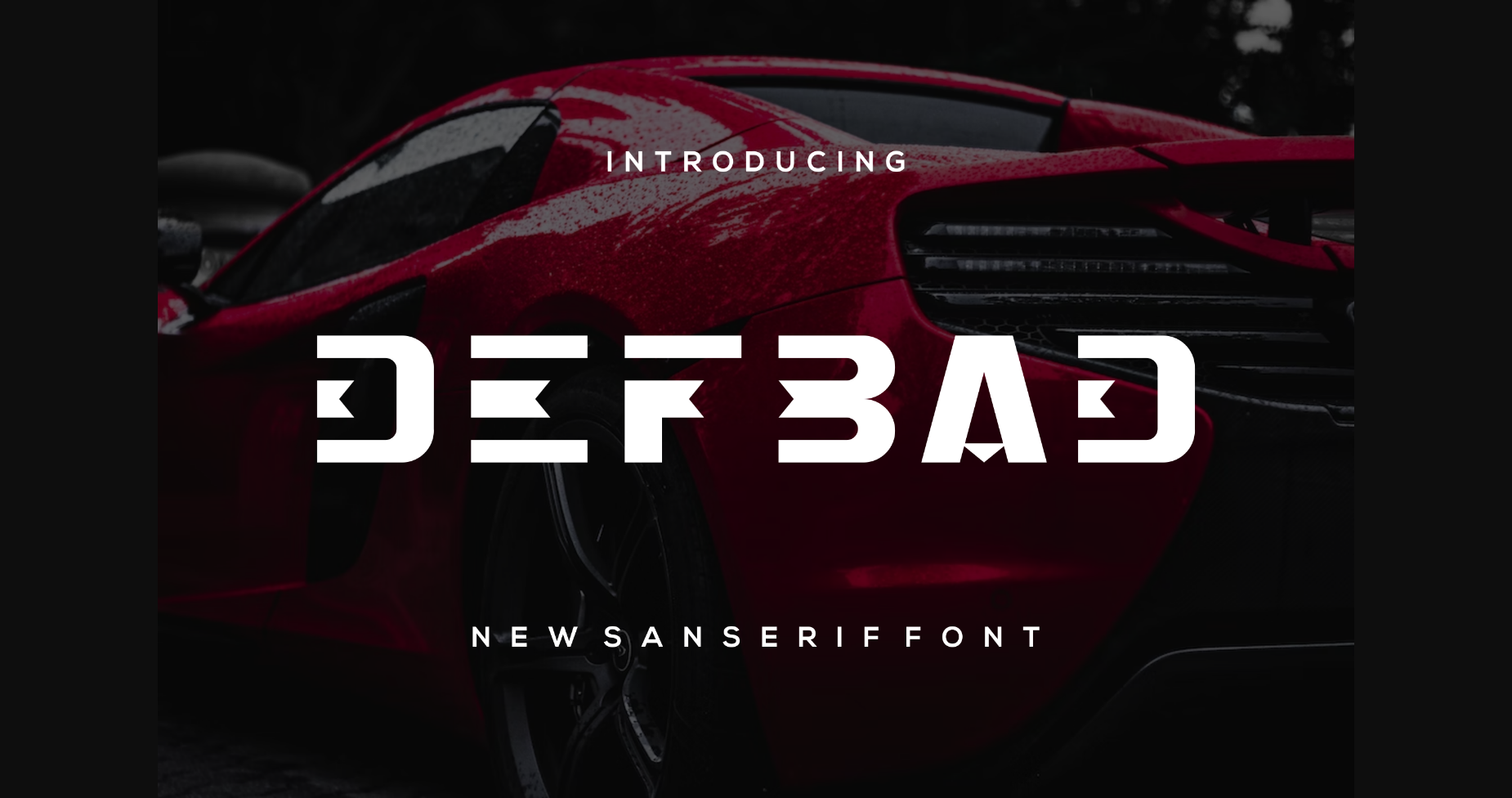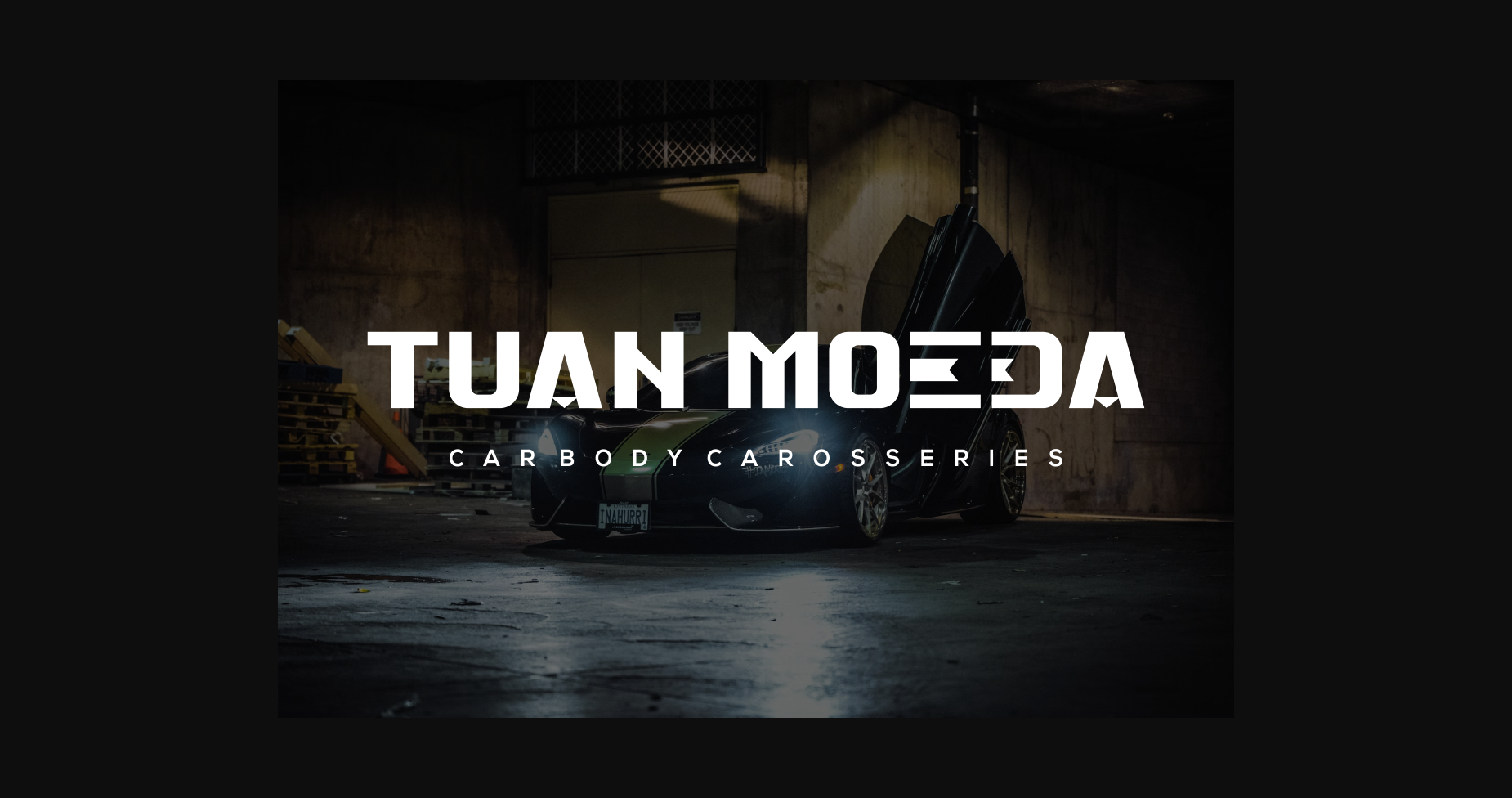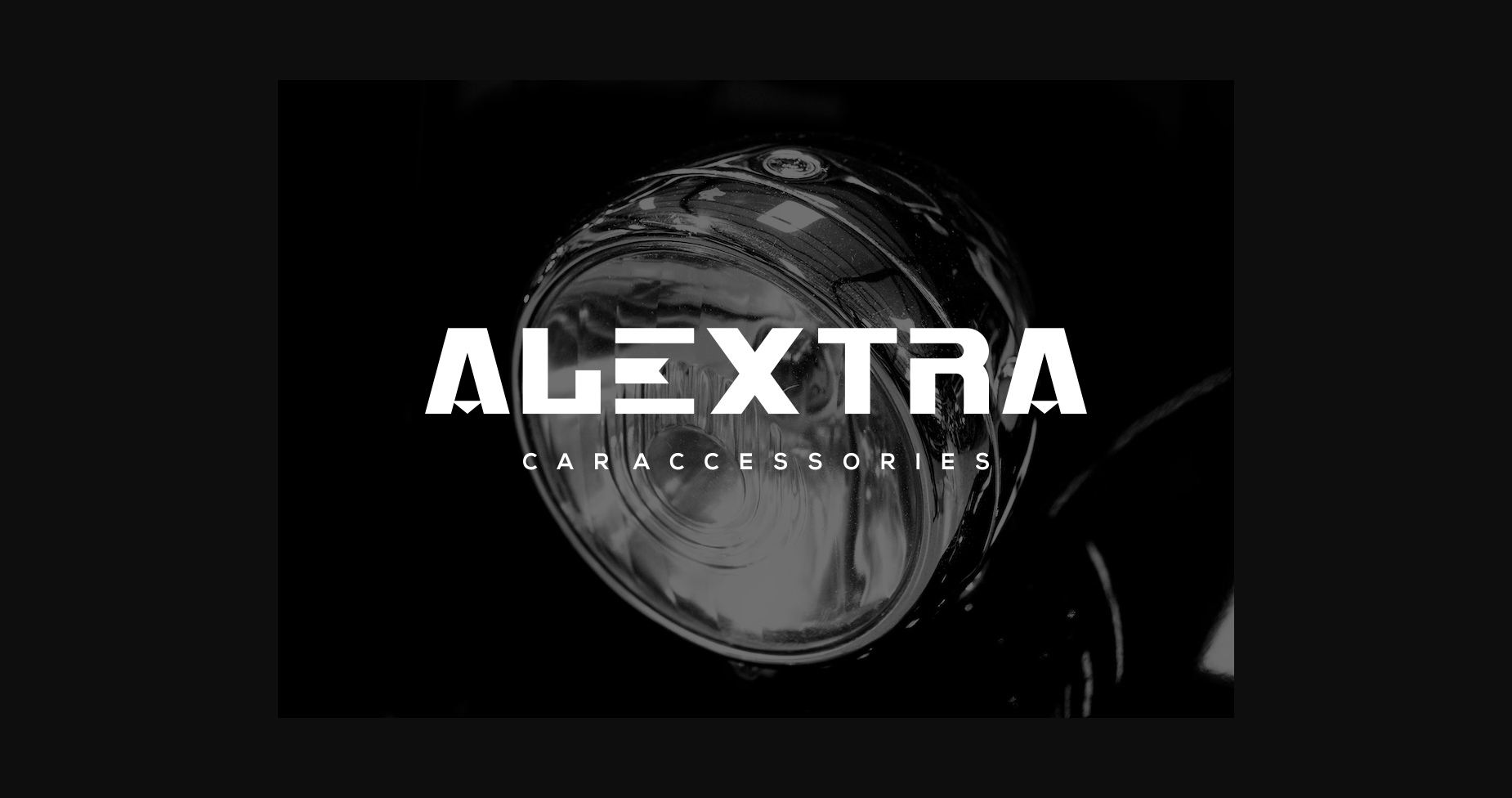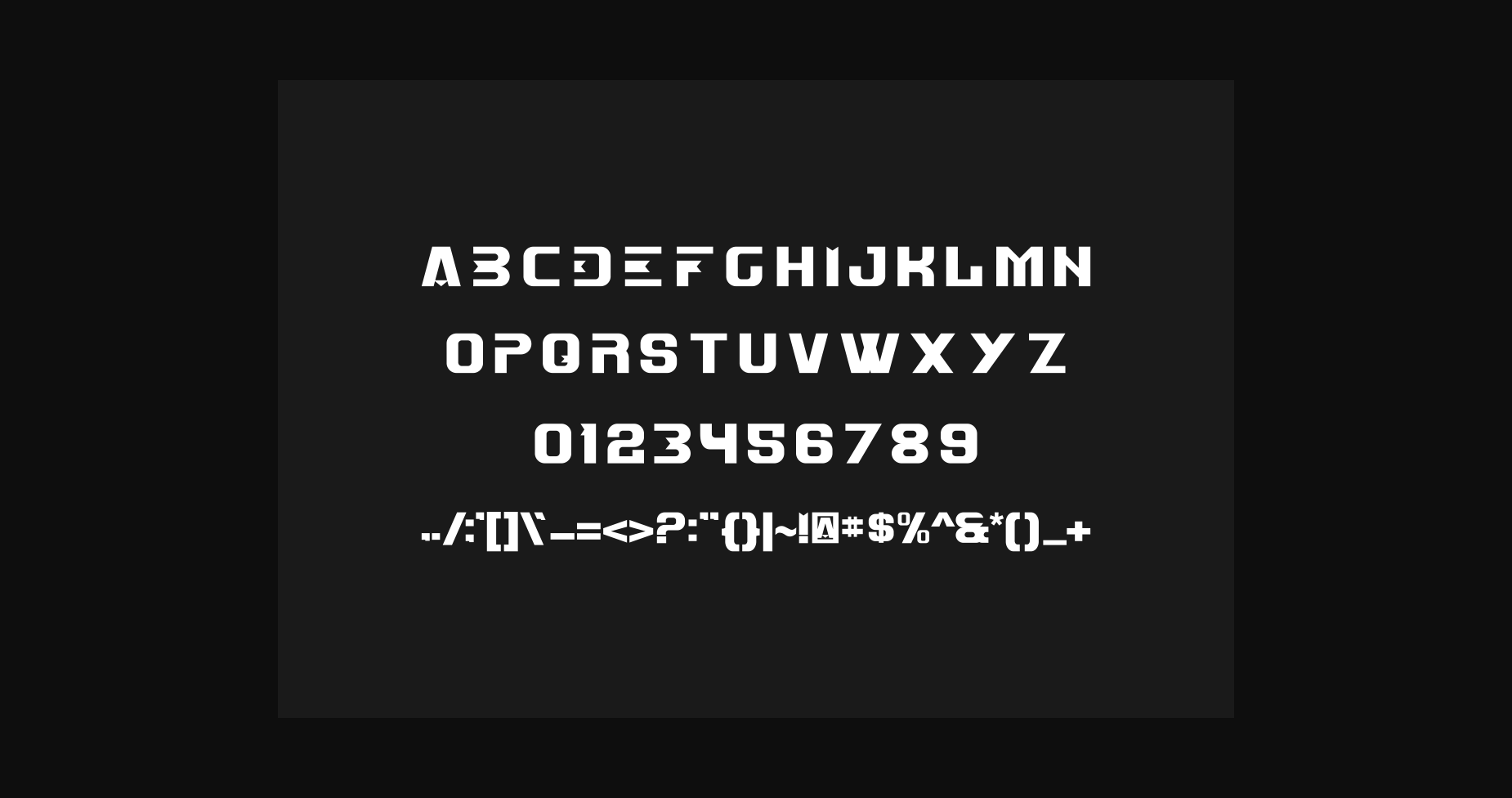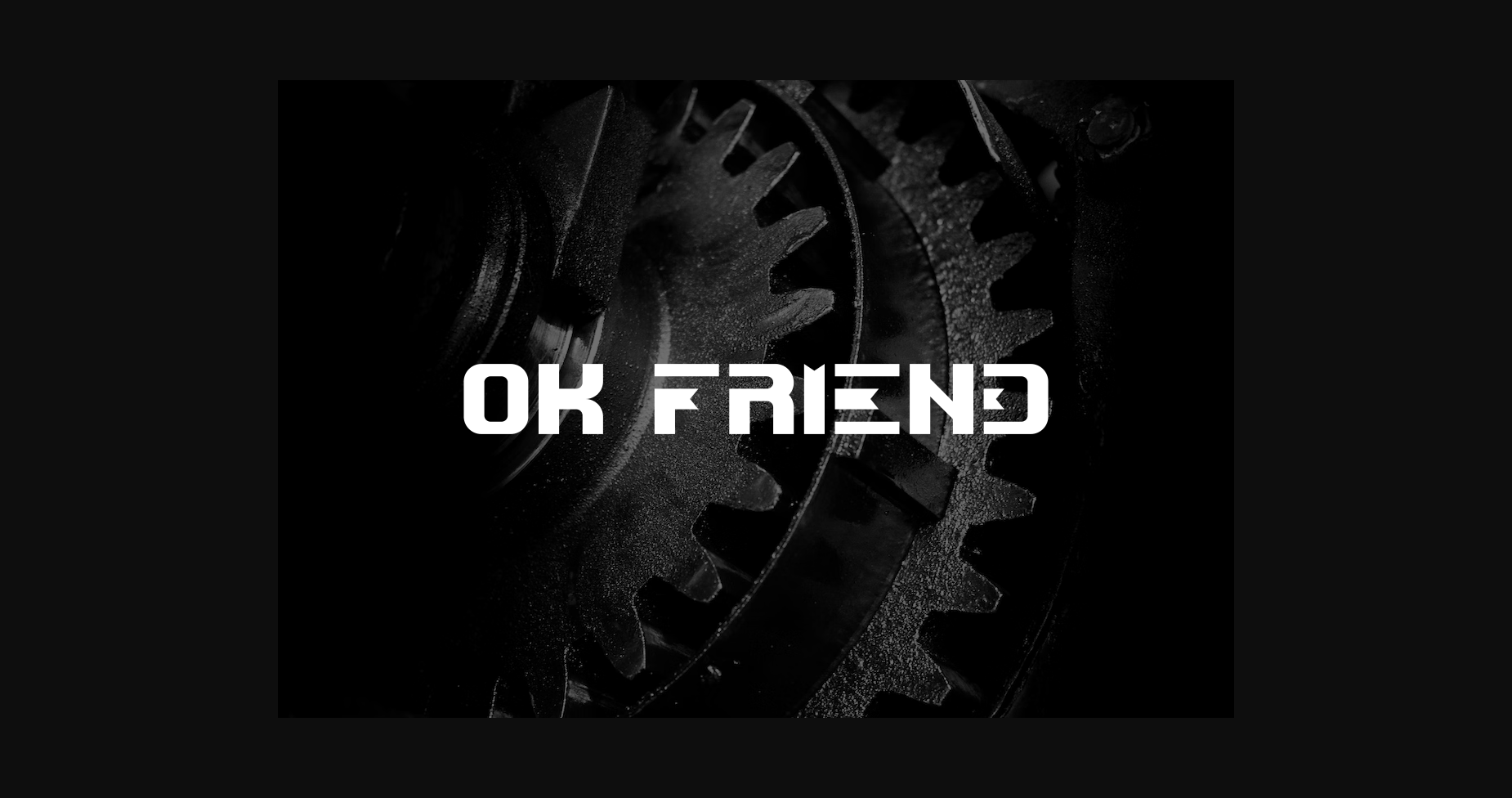
HomeSans Serif FontsDefbad Font Sans Serif Fonts Defbad Font FacebookXPinterestWhatsApp 1 of 7 ... Defbad Font Poster 2... Defbad Font Poster 3... Defbad Font Poster 4... Defbad Font Poster 5... Defbad Font Poster 6... Defbad Font Poster 7... About Defbad Font is a modern, bold, and authentic display font. The font is suitable for any branding project like logo, t-shirt printing, esports, and many more. outstanding in a wide range of contexts. DOWNLOAD NOW People also explored Sightwell Signature Font DOCU Bold Avapore Round Font Gineso Titling Cute Slim Font Brassie Family Font Lucky One Font Rain Font Arsitage Brush Font 495 0 TagsDefbadDefbad Font Previous articleThought and Intelligence FontNext articleKing Neprog Font LEAVE A REPLY Cancel reply Comment: Please enter your comment! Name:* Please enter your name here Email:* You have entered an incorrect email address! Please enter your email address here Website: Save my name, email, and website in this browser for the next time I comment. Personal Use Free Super Caramel Font Personal Use Free Read more about this font The Lima Personal Use Free Read more about this font Machine House Personal Use Free Read more about this font Frizton Personal Use Free Read more about this font BLOG How to Cut Any Font on Cricut: Convert a Font to SVG (Free) Turn any font into a clean SVG so it cuts crisp on Cricut - a quick 3-step workflow using a free font-to-SVG tool. The 10 Best Handwriting Fonts to Add Personality to Your Designs 5 Fonts That Will Dominate Design Trends in 2026 Using Fonts in Digital Marketing: Tips to Strengthen Your Brand Identity